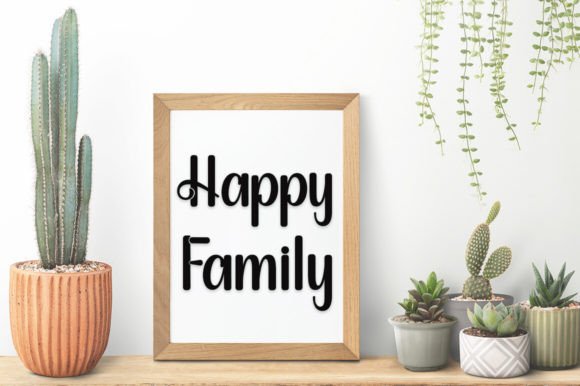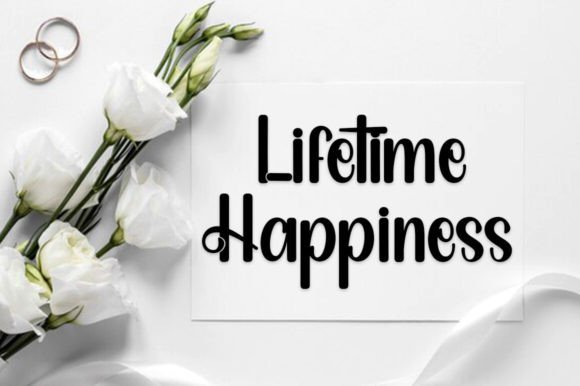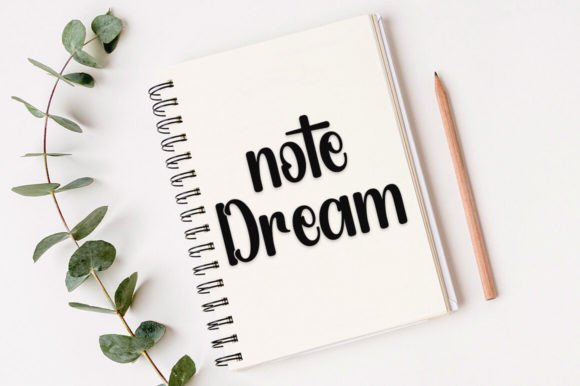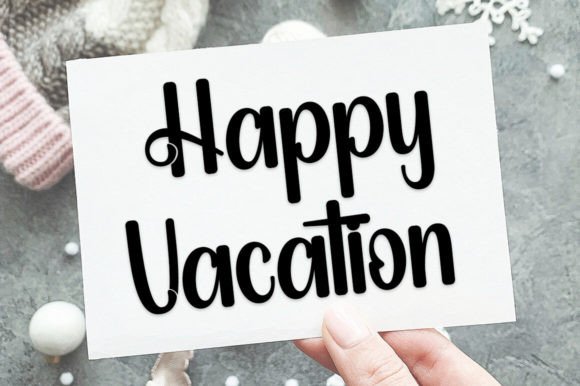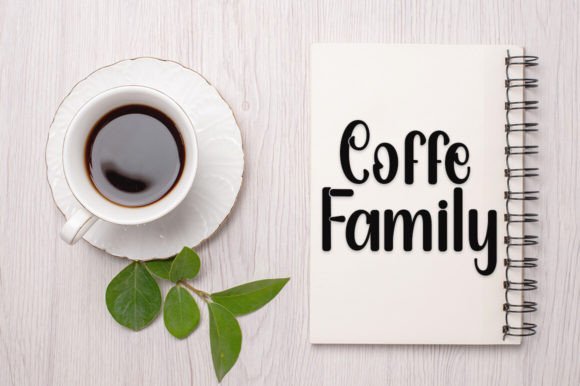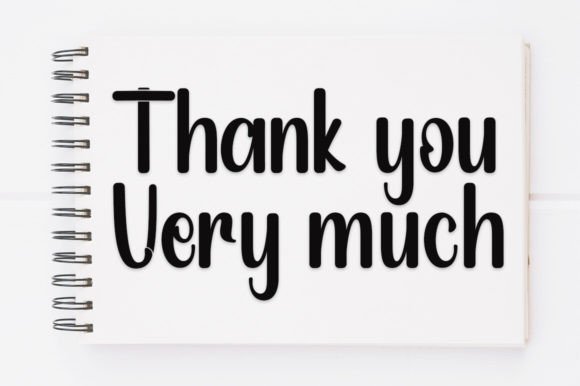
Deck the Halls with Alastor Font
There’s something magical about the holiday season – the twinkling lights, the festive music, and the joyous atmosphere that fills the air. As designers, we know that a well-chosen font can evoke those same feelings and transport our audience to a winter wonderland. For us, that font is Alastor, a festive and happy typeface that captures the spirit of the holiday season.
With its decorative elements and unique flair, Alastor Font adds a touch of charm to any design. Whether you’re creating greeting cards, gift labels, or holiday-themed projects, this font brings a cheerful and nostalgic atmosphere to your words. For designers, Alastor Font is a valuable asset – it’s the perfect way to add a personal touch to your designs and make them stand out from the crowd.
Alastor Font Key Features
- Font Family: Alastor comes in 6 different font styles, each with its unique characteristics and flair.
- Resolution: Designed to work well at high resolutions, Alastor is ideal for use in digital applications, such as websites, mobile apps, and digital publications.
- Unique Characteristics: Alastor features a unique blend of elegant and modern elements, making it perfect for use in high-end branding, luxury goods, and sophisticated design projects.
Alastor Font Review
I recently had the chance to work with the Alastor font, and here’s my honest take on it.
✨ I love the unique blend of elegance and sophistication that Alastor brings to the table. The font is perfect for creating a sense of luxury and refinement in any design project.
- ✨ The font’s strong vertical strokes and distinctive letterforms make it stand out from more generic serif fonts.
- ✨ Alastor is highly versatile and can be used for a wide range of applications, from headings to body text.
- ✨ The font’s high level of detail and nuance make it a great choice for designers who want to add some visual interest to their work.
⚠️ While Alastor is a great font, it does have some limitations that designers should be aware of.
- ⚠️ The font can be quite dense, which may make it difficult to read at smaller font sizes.
- ⚠️ Alastor may not be the best choice for projects where a more casual or playful tone is desired.
- ⚠️ The font’s complexity may make it difficult to pair with other fonts, so designers may need to be careful when selecting complementary fonts.
Overall, I think Alastor is a solid choice for designers who want to add some sophistication and elegance to their work. While it may have some limitations, the font’s unique character and high level of detail make it a great option for a wide range of applications.
1. Use Alastor font for headings and titles to add a touch of elegance to your design.
2. Combine Alastor with other fonts to create a unique and visually appealing typography.
3. Use Alastor for invitations, brochures, and other marketing materials to create a professional and sophisticated look.
Alternatives to Alastor Font for Designers
Montserrat is a sans-serif font that originated in Argentina. It is known for its geometric shape and urban feel, making it suitable for modern and minimalist designs. When to use: For digital products, websites, and apps that require a clean and modern aesthetic. Comparison to Alastor Font: Montserrat has a more geometric and urban feel compared to Alastor Font’s more distressed and vintage look.
2. Playfair Display
Playfair Display is a luxurious and elegant serif font that is perfect for creating a sophisticated and high-end feel. When to use: For luxury brands, high-end products, and designs that require a touch of elegance. Comparison to Alastor Font: Playfair Display is more elegant and refined compared to Alastor Font’s distressed and vintage look.